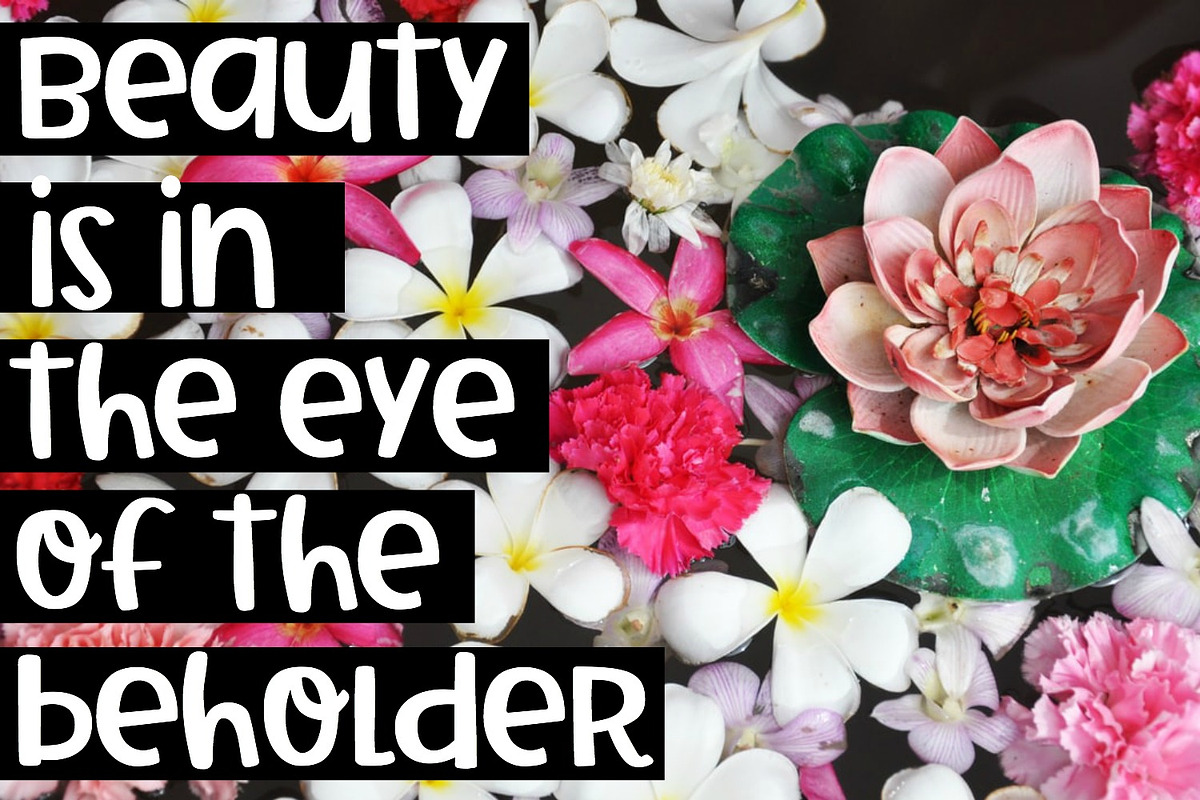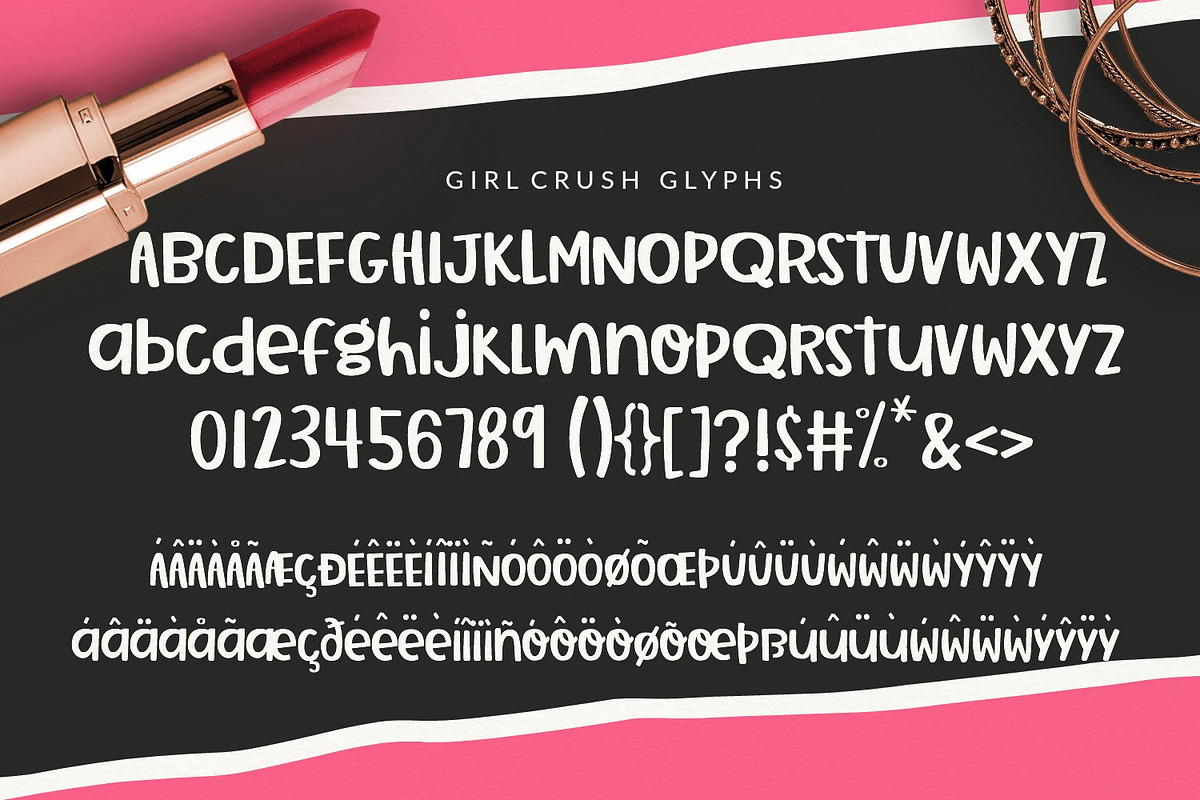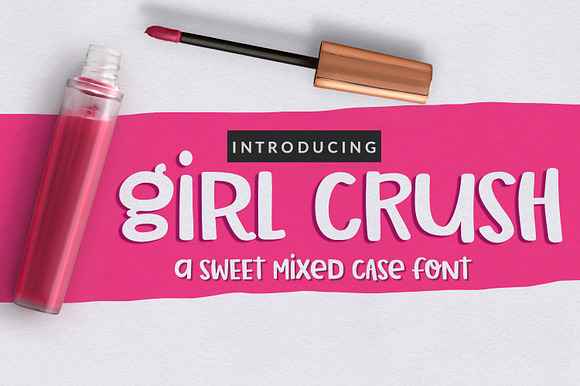
Girl Crush Handwritten Font
Girl Crush is a bold, spunky handwritten font. It is extra smooth making it a great font choice for Cricut and Silhouette crafters.
Why Girl Crush Handwritten Font is worth a look
Girl Crush Handwritten Font by Sabrina Schleiger Design fits naturally into Branding, posters, packaging, typography.